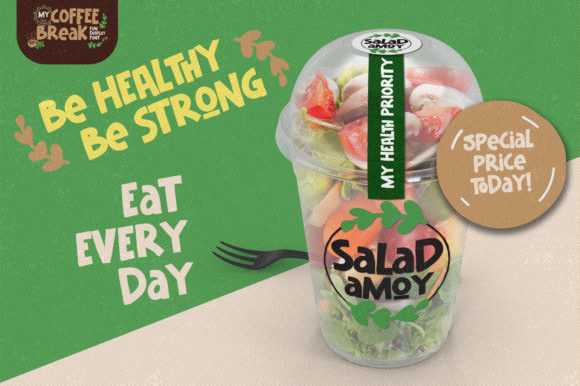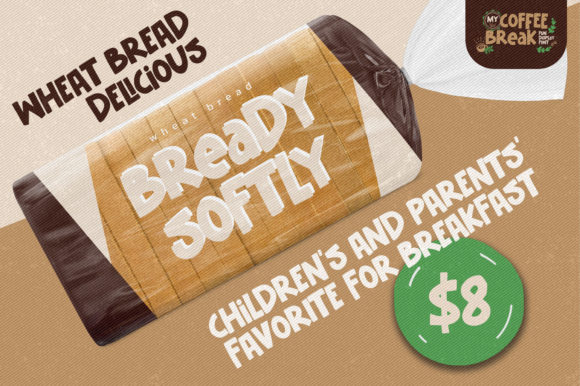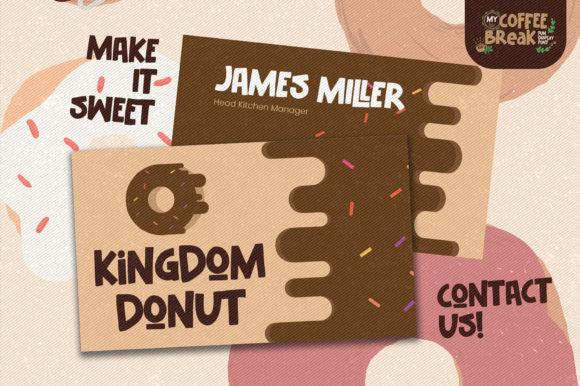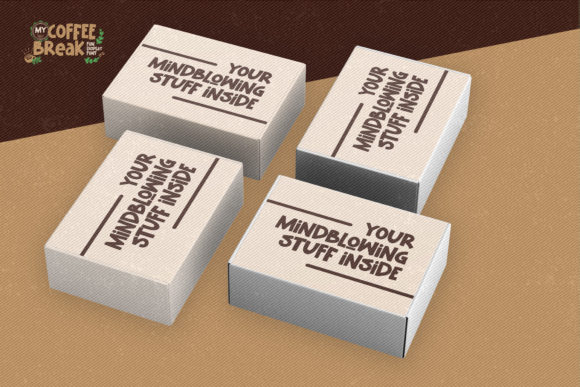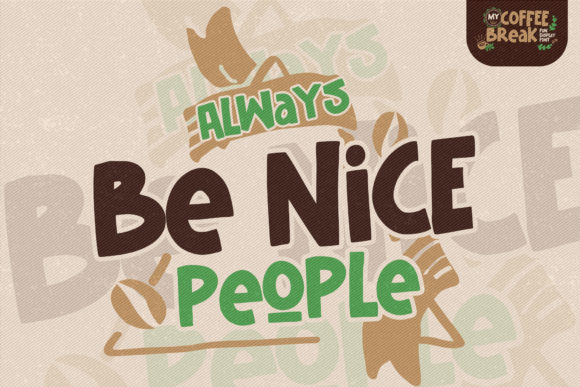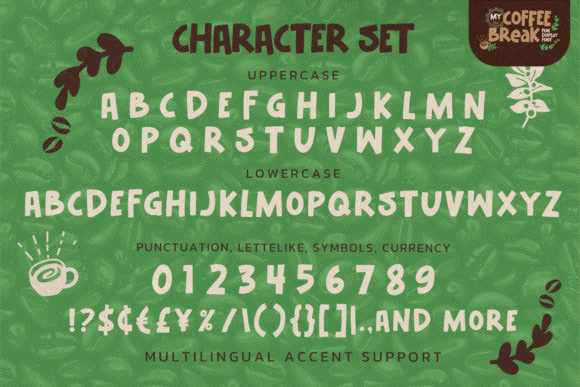
Introduction to My Coffee Break Font Font
Fonts play a crucial role in design, and the My Coffee Break Font font is a typeface that brings both character and versatility to any project. Whether you’re working on a branding project, a website, or a print design, the My Coffee Break Font font offers a unique style that can elevate your work.
My Coffee Break is a chic and fun looking display font.
It is PUA encoded which means you can access all glyphs and swashes with ease Use this font for your designs and explore its endless possibilities.
Key Features of My Coffee Break Font Font
Why Choose My Coffee Break Font Font?
The My Coffee Break Font font is more than just a typeface – it’s a design tool that helps you communicate your message with style and clarity. Its unique character set and versatile design make it suitable for a wide range of applications, from elegant invitations to bold headlines.
With its carefully crafted letterforms and balanced proportions, the My Coffee Break Font font ensures readability and visual appeal across all mediums.
What makes My Coffee Break Font font special?
The My Coffee Break Font font stands out with its unique design, exceptional readability, and versatility across various design applications.